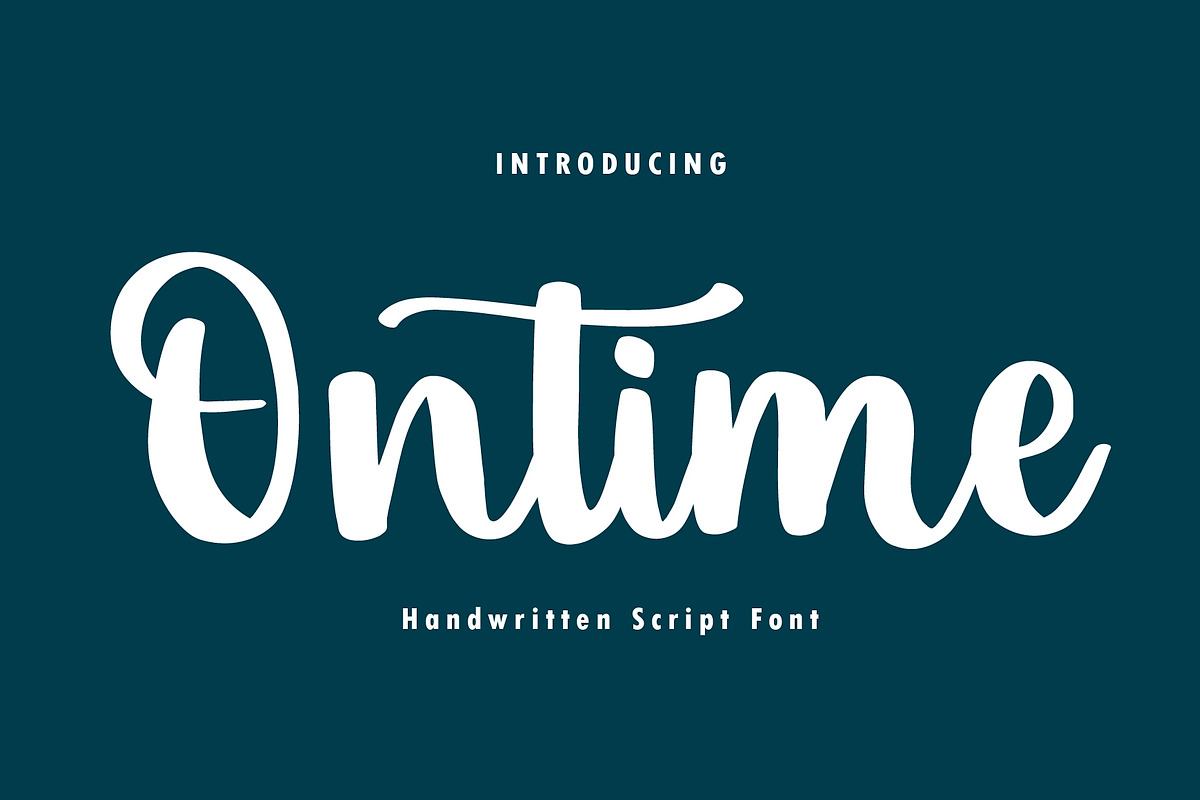
Ontime Modern Script Font Free Download
The Ontime Modern Script Font Free Download is a sleek and stylish script typeface that blends modern elegance with a handwritten feel. Perfect for branding, invitations, logos, social media graphics, and more, this font offers a sophisticated yet approachable style that adds a personal touch to your designs.
With its smooth curves and flowing strokes, Ontime provides a beautiful, fluid look. It includes uppercase and lowercase letters, numbers, punctuation, and multilingual support, making it versatile for a wide range of creative projects.